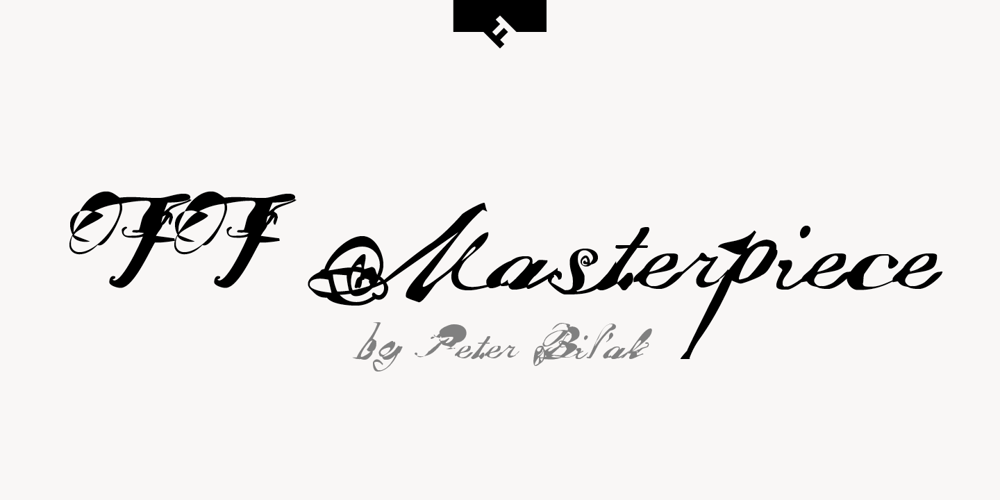
FF Masterpiece Font Family was designed by Peter Bil’ak and published by FontFont. FF Masterpiece contains 2 styles and family package options. Slovakian type designer Peter Bil’ak created this script FontFont in 1996. The family contains 2 weights and is ideally suited for festive occasions. FF Masterpiece provides advanced typographical support with features such as ligatures, alternate characters, case-sensitive forms, and stylistic alternates. It comes with proportional lining and proportional oldstyle figures.